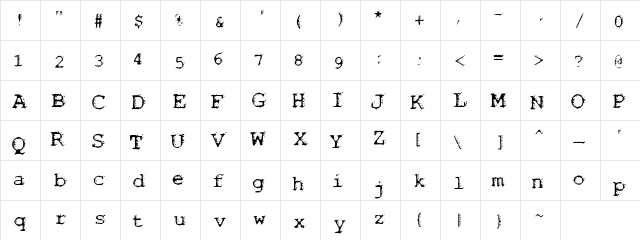
Hitech Regular
Regular ·  JupiterImages ·
DesignerJupiterImages
Design Context for Hitech Typeface
Hitech channels digital-age aesthetics through its sharp, structured letterforms — ideal for brands that want to signal innovation.
Pro Tip: Use Hitech in combination with a neutral sans for body text. Let it define the brand voice in headlines while keeping reading comfortable elsewhere.